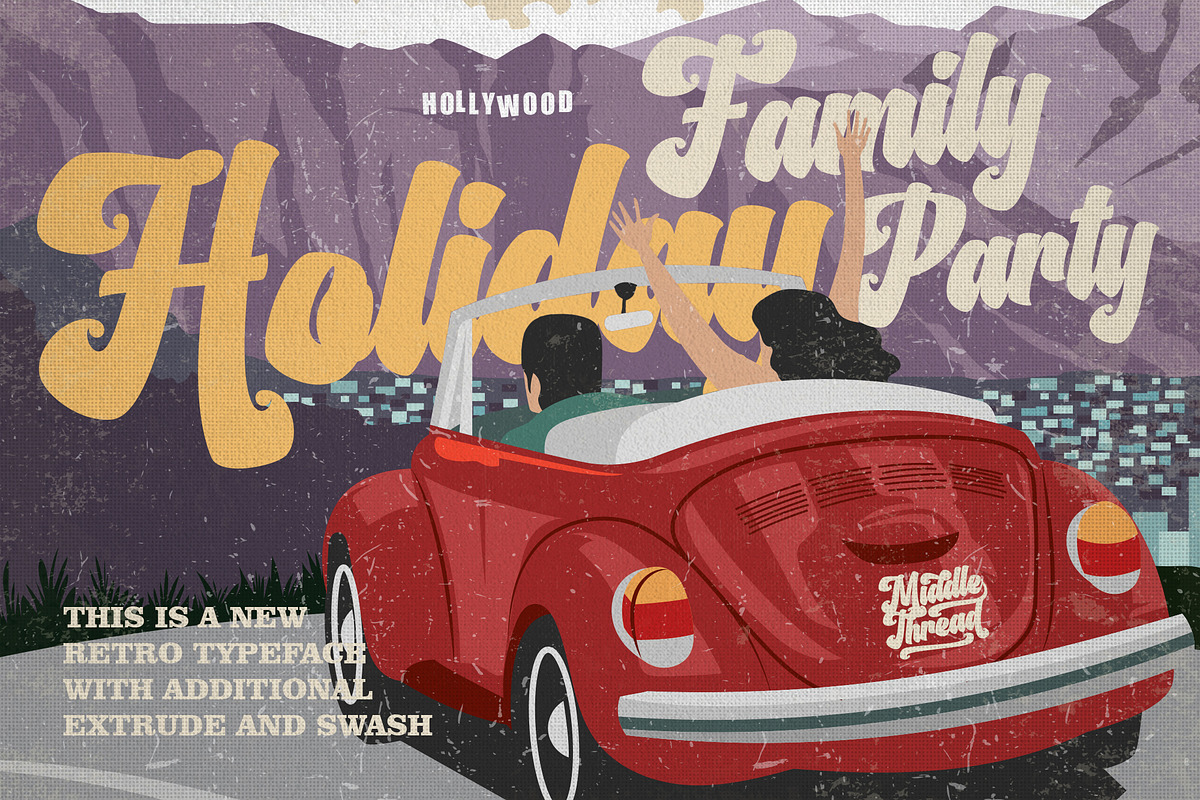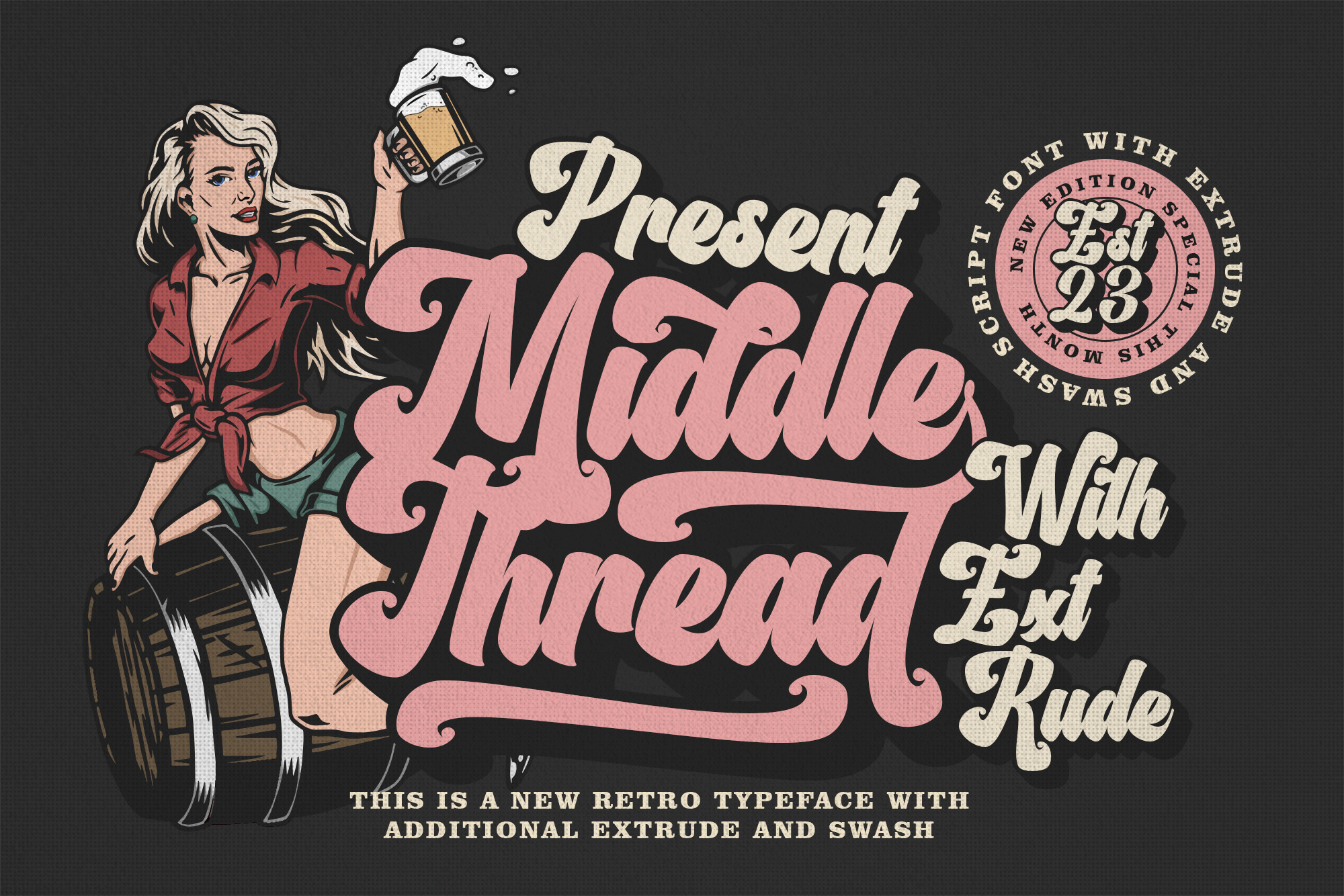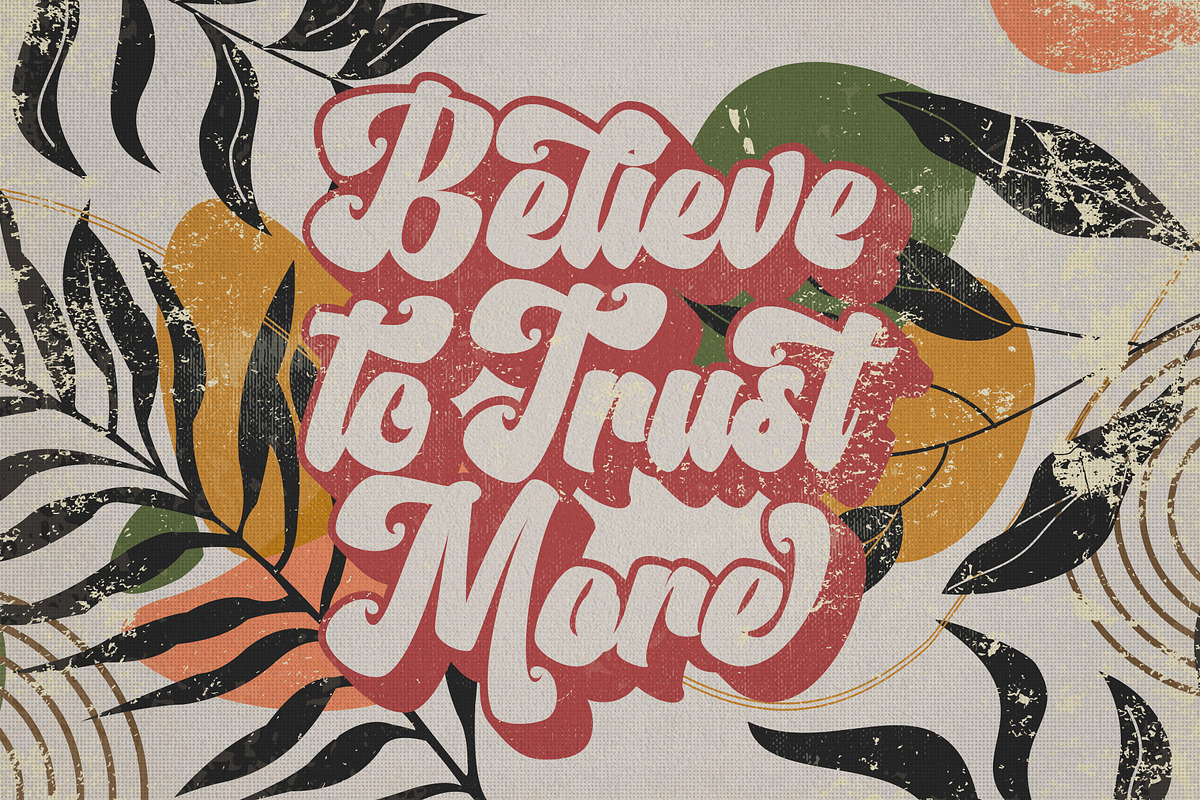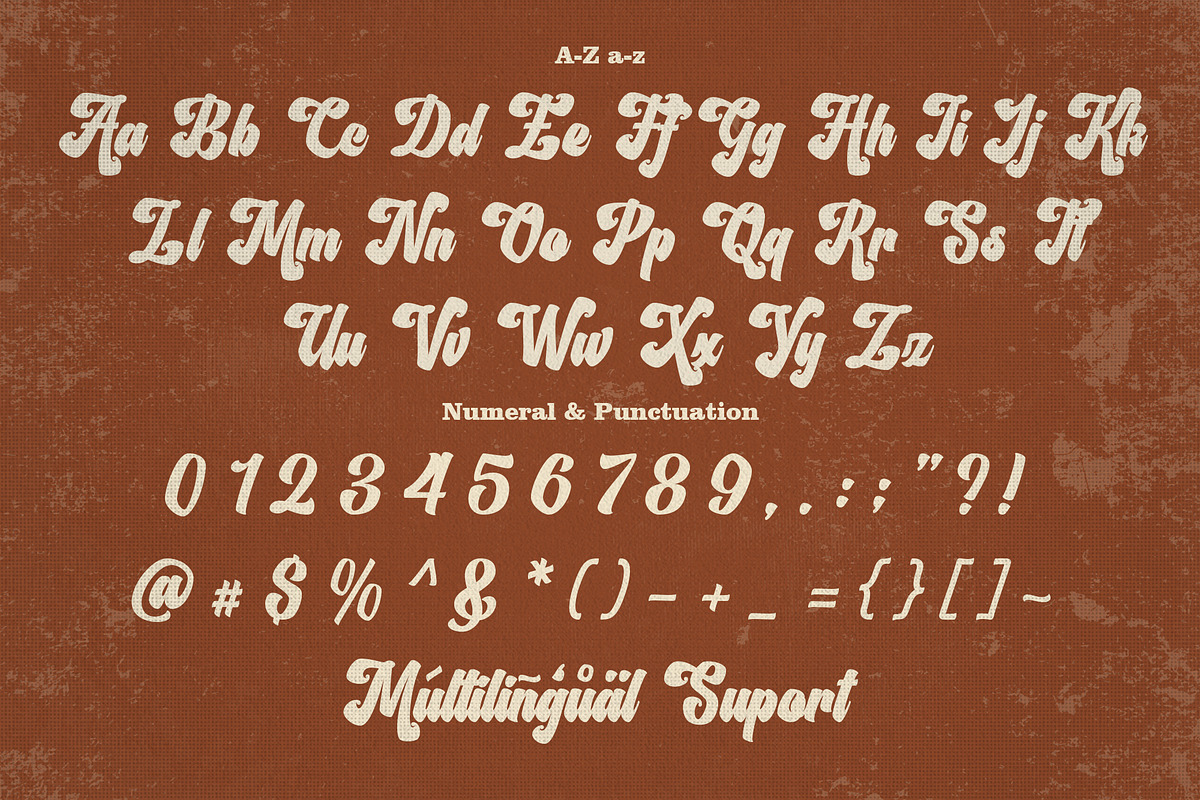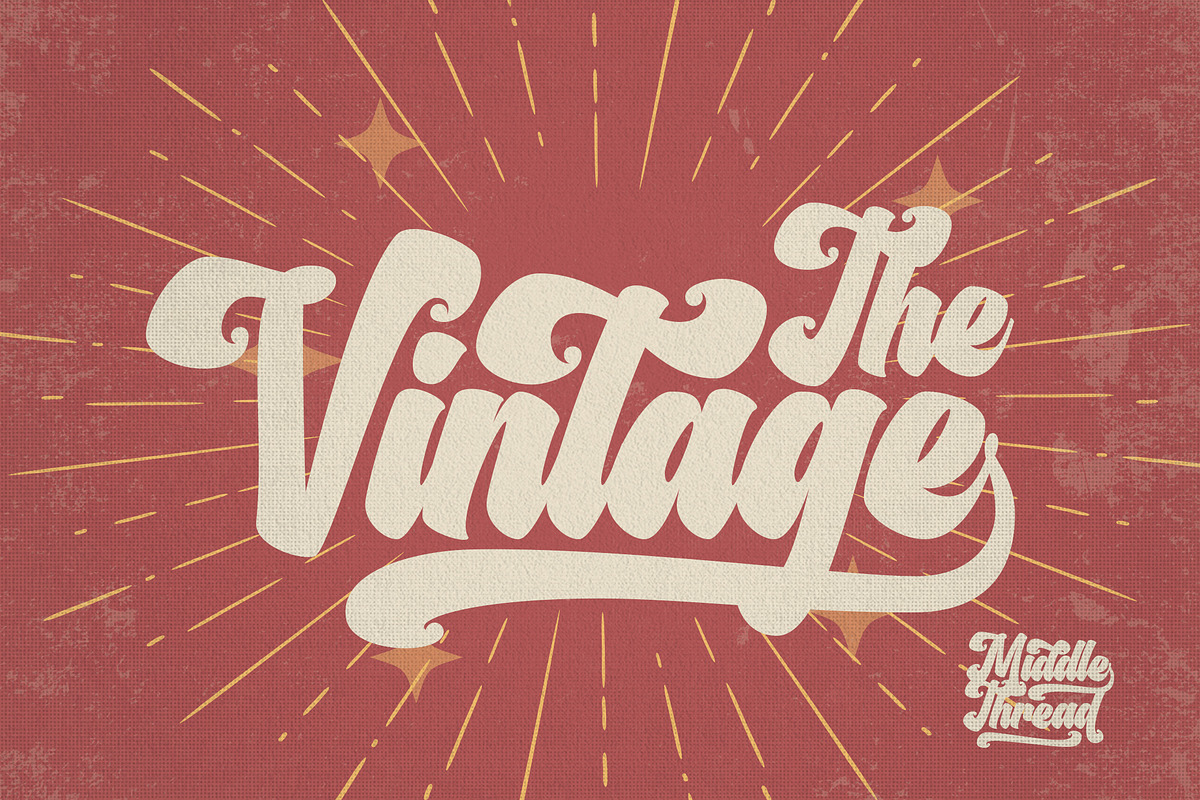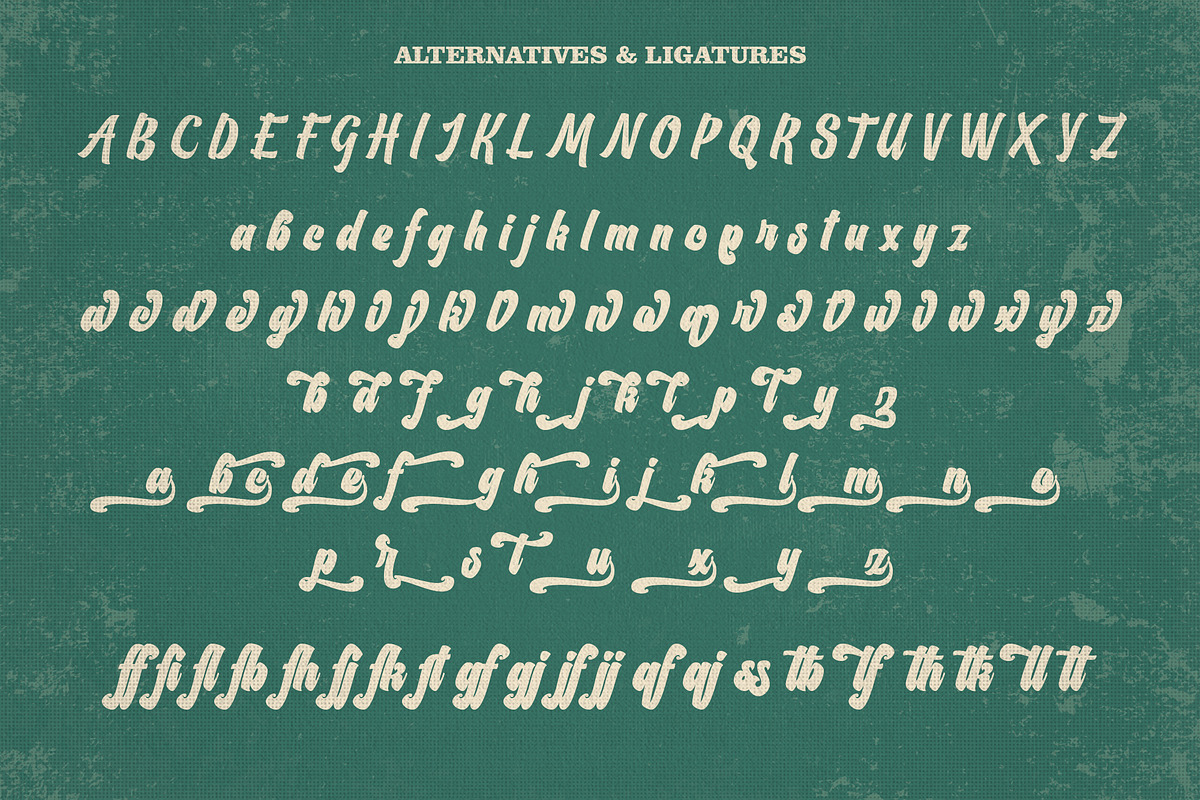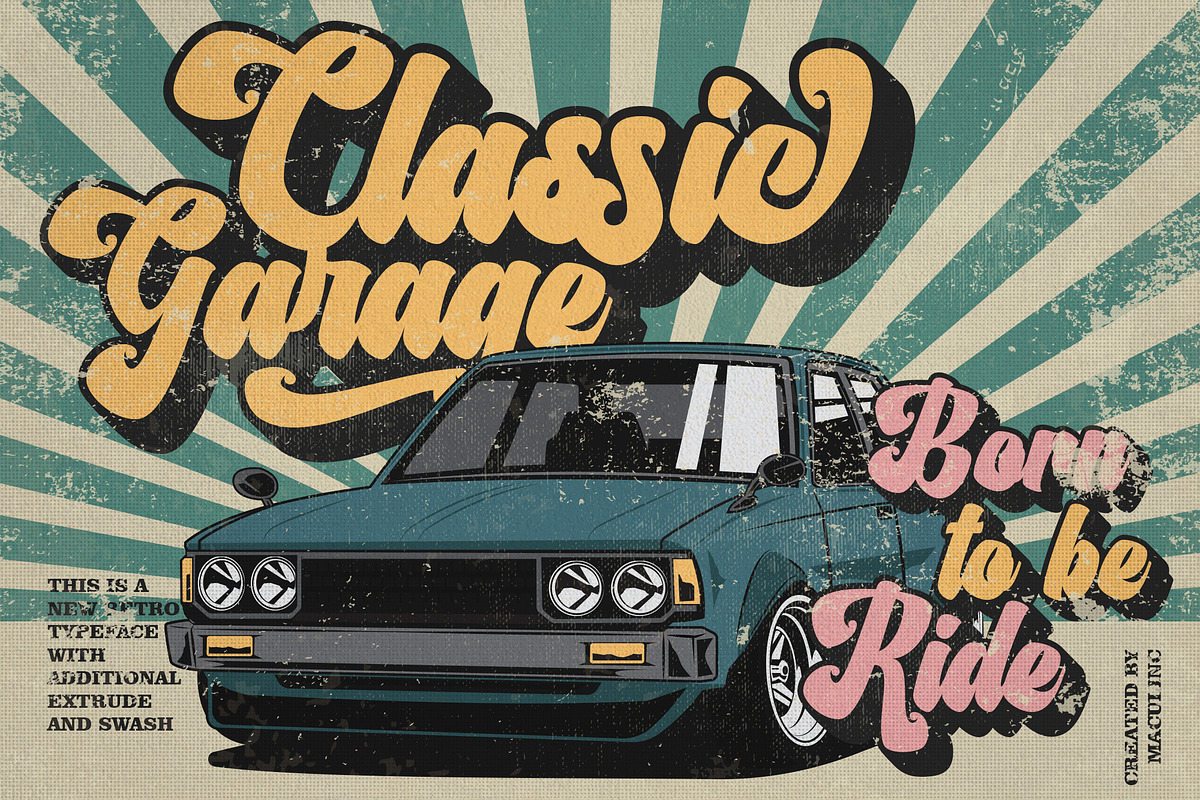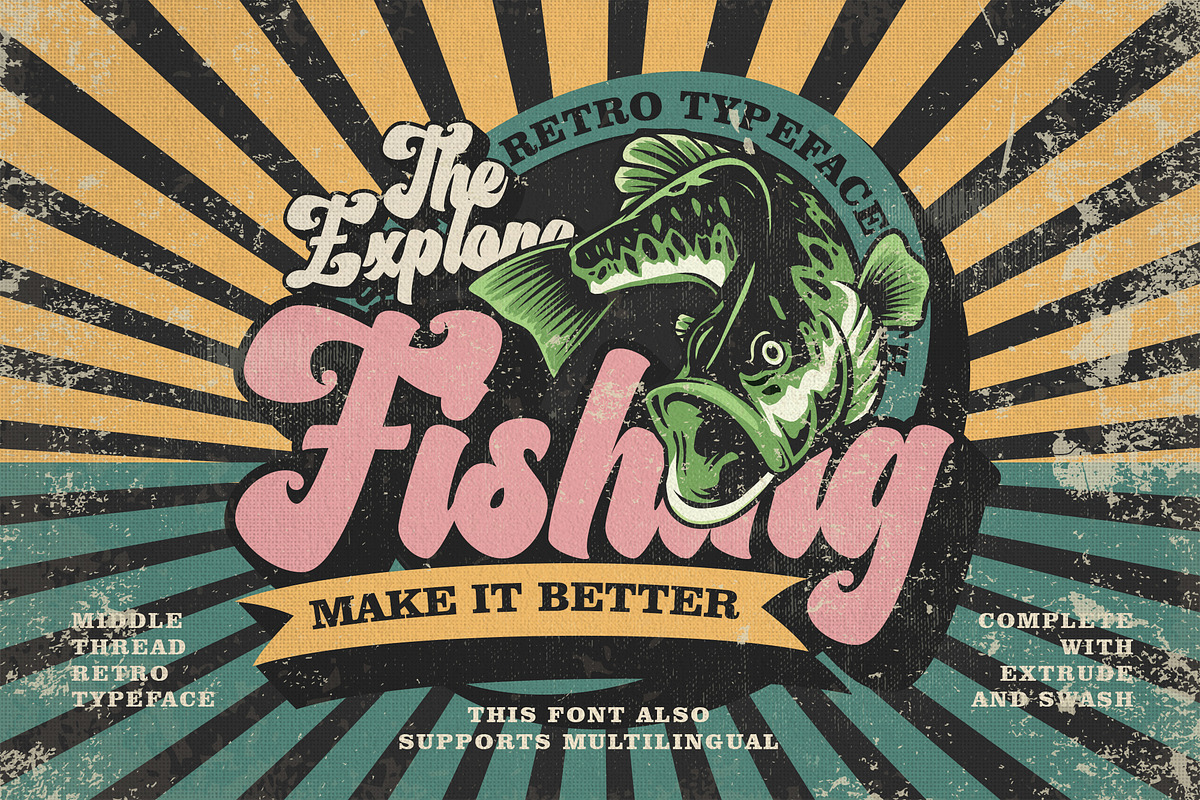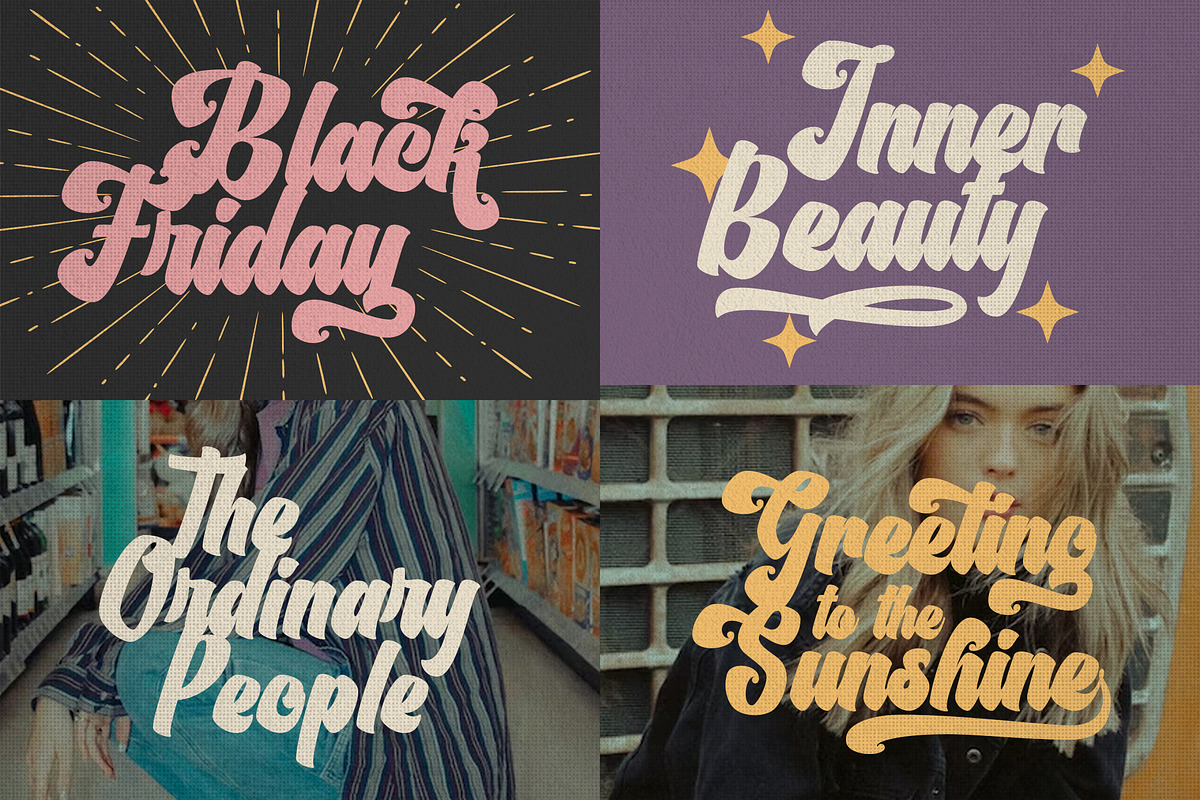
Middle Thread - Retro Font
Middle Thread is a Script Font with a retro style. Soft curves are combined with high-contrast glyphs, conveying an attractive retro and vintage quality.
This font consists of 4 Middle Thread Fonts Regular, Extrude, Swash and Swash Extrude, with many unique ligatures and alternatives provided. Great in layout design for quotes or body copy, best used as a display for posters, headings, logos, branding, magazines, product packaging, and a wide variety of things.
Mix Regular and Swash to create a unique and very beautiful look, especially when you add the Extrude feature of the font, it really adds uniqueness and interest by looking even more amazing.